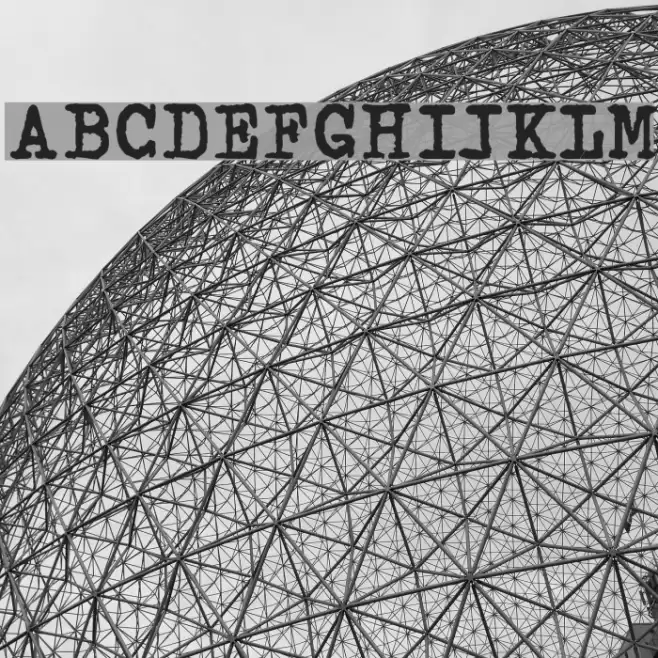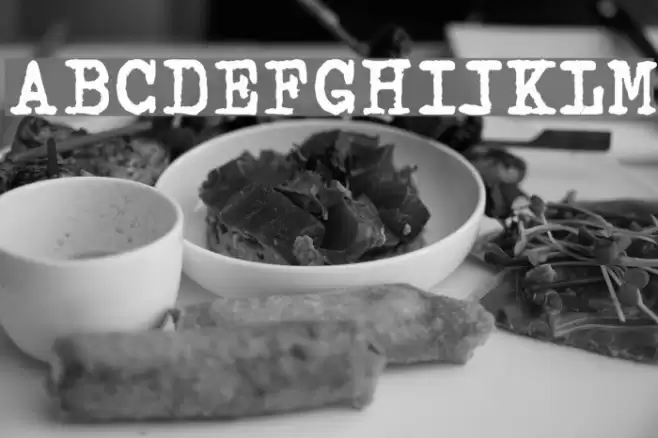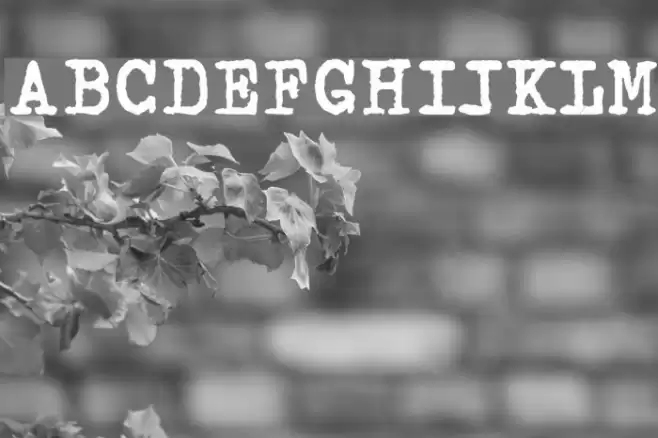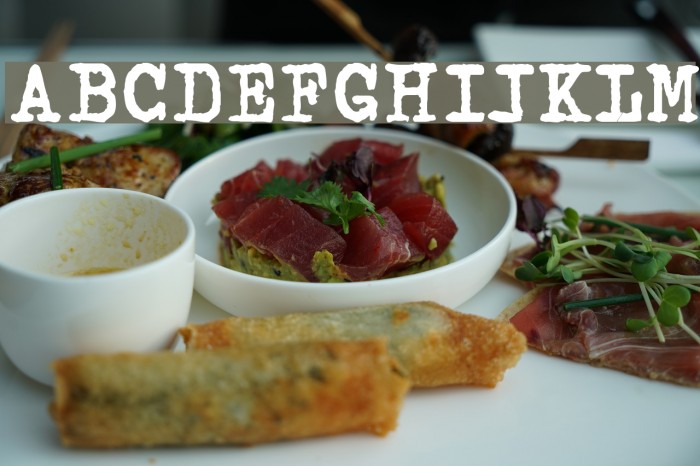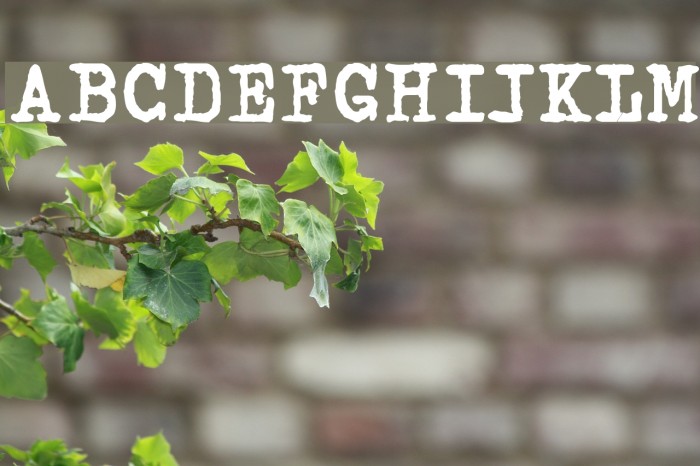
Espresso
This font features a bold, distressed style with a vintage and rugged appearance. The uppercase letters are prominently displayed with a textured, worn look that suggests a typewriter or old printing press. The characters have a strong presence, with thick strokes and slightly uneven edges that add to their charm. The font's design is reminiscent of old Western or industrial themes, making it ideal for projects that require a touch of nostalgia or a handcrafted feel. Its boldness ensures it stands out, while the distressed details provide a unique character.
A bold, distressed font with a vintage, rugged appearance.
- Proposed Projects: Ideal for vintage posters, branding for rustic or industrial-themed businesses, and designs that require a handcrafted or nostalgic touch.
- Overall Style: Vintage